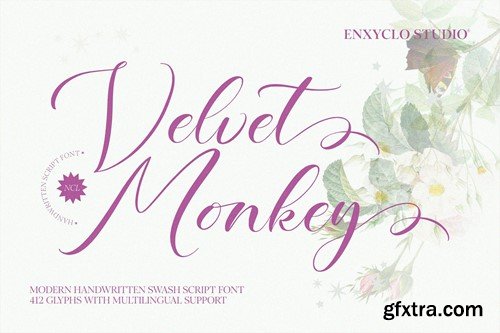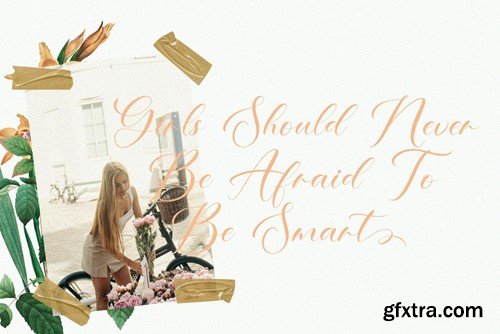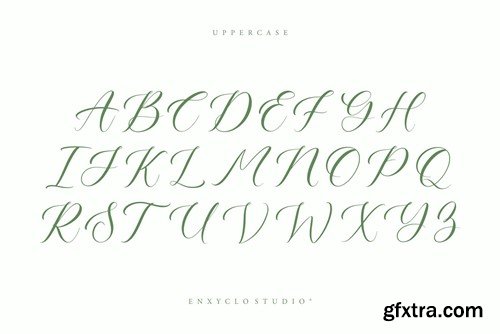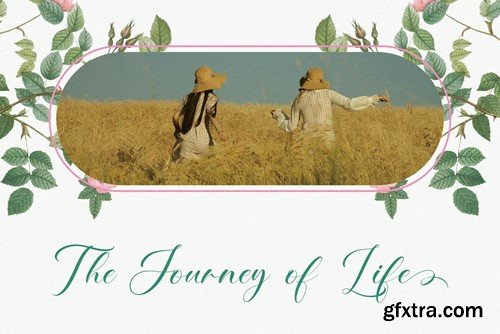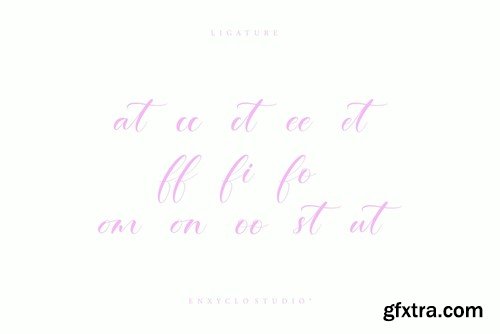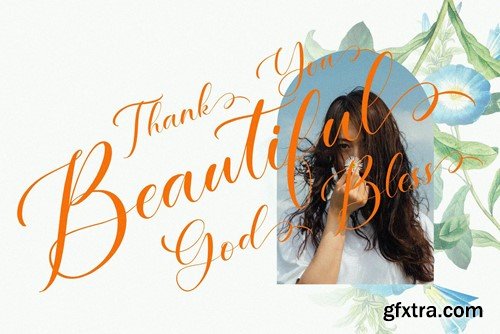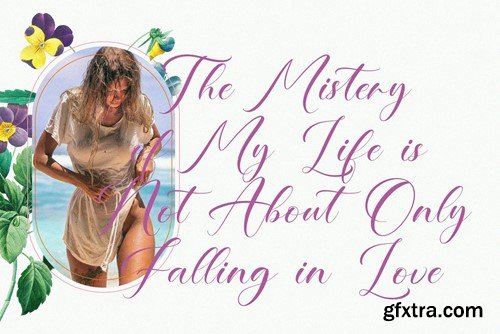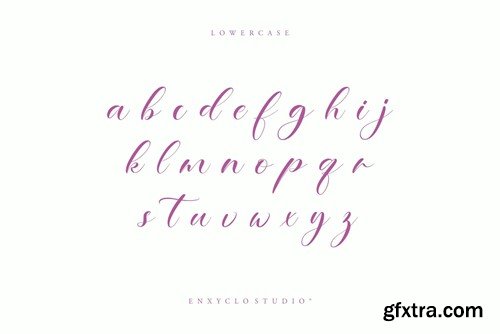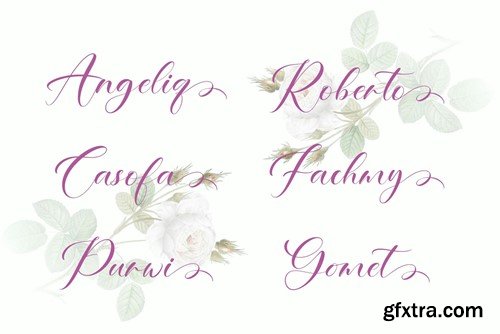
NCL Velvet Monkey - 手写体剧本字体 463WHDG
NCL Velvet Monkey is a modern and elegant handwritten swash script with signature style display font. Masterfully designed to become a true favorite, this font has the potential to bring each of your creative ideas to the highest level! It was purposely crafted to be used in large point sizes, although it doesn’t lose its magic in small point sizes. It is perfect for headline, digital ads, magazines, website, poster, branding, and logos. No matter the topic, this font will be an incredible asset to your fonts’ library, as it has the potential to elevate any creation. With this beautiful font, absolutely you can make your project stand out from the rest. FEATURES